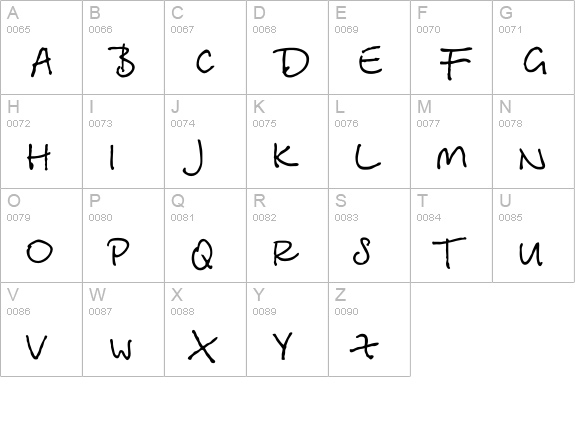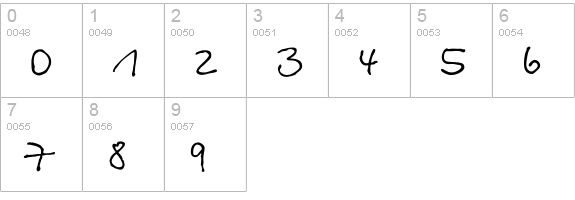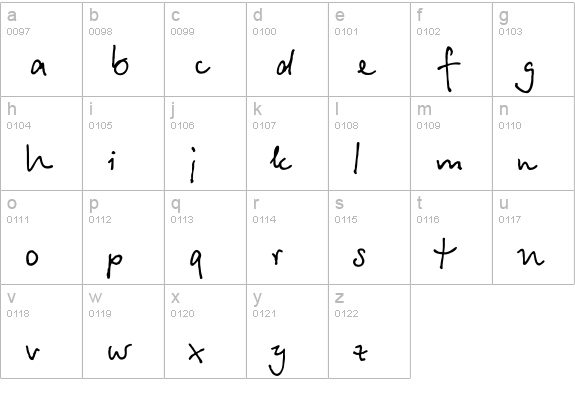
PT BetinaScript Cyrillic Font Details
PT BetinaScript Cyrillic is a stunning and elegant font that combines traditional Cyrillic characters with a modern and stylish twist. With its flowing lines and graceful curves, this font is perfect for adding a touch of sophistication to any project. Whether you're designing elegant invitations, eye-catching logos, or striking headlines, PT BetinaScript Cyrillic is sure to make a statement. The best part? This beautiful font is available for free download at FontsMarket.com. That's right, you can add this versatile and eye-catching typeface to your collection without spending a dime. Don't miss out on the opportunity to elevate your designs with the timeless charm of PT BetinaScript Cyrillic. Download it today and let your creativity shine!